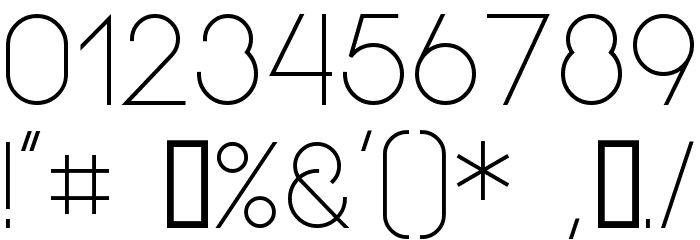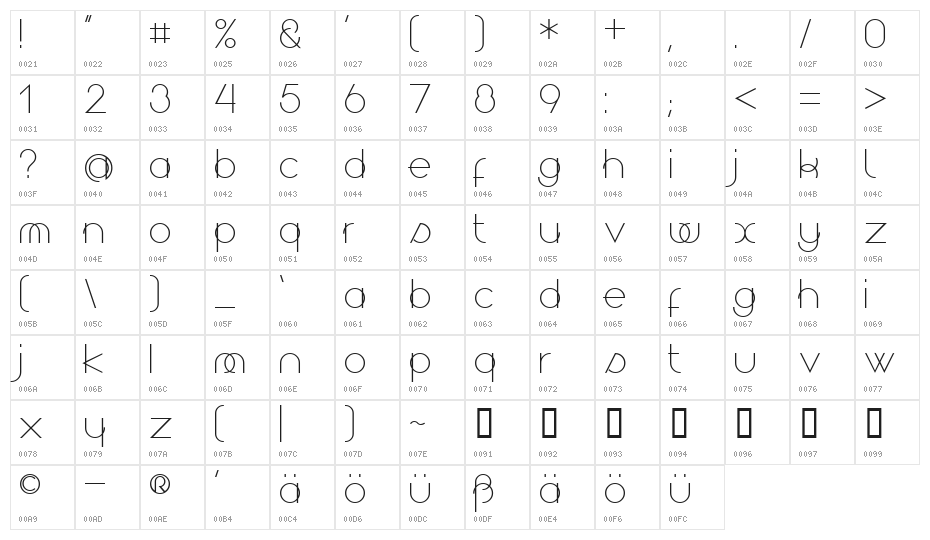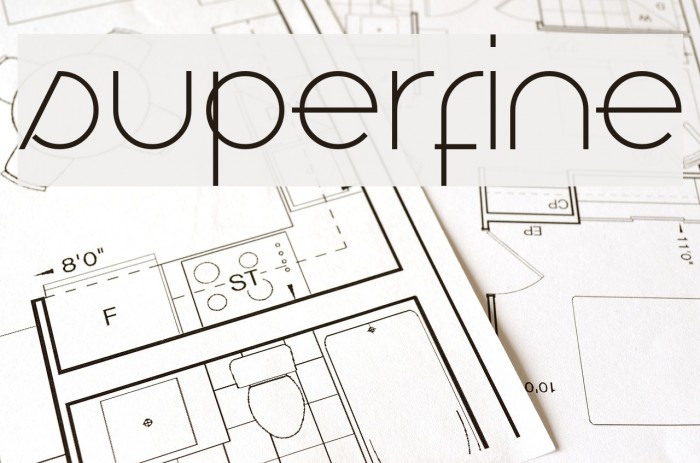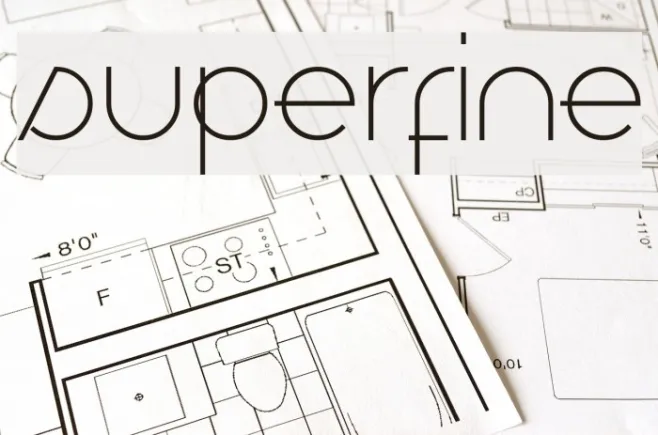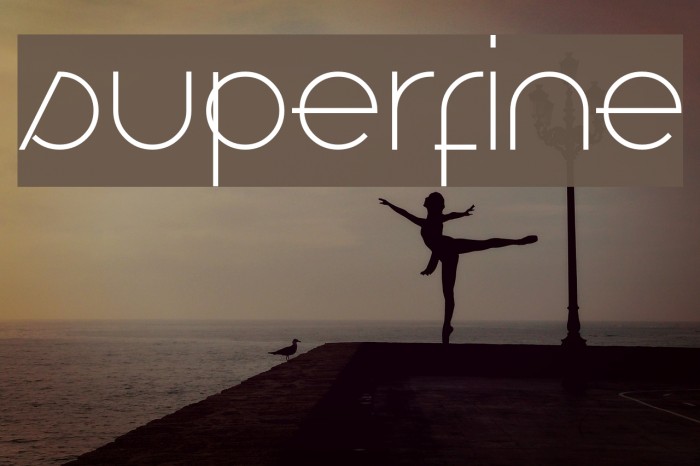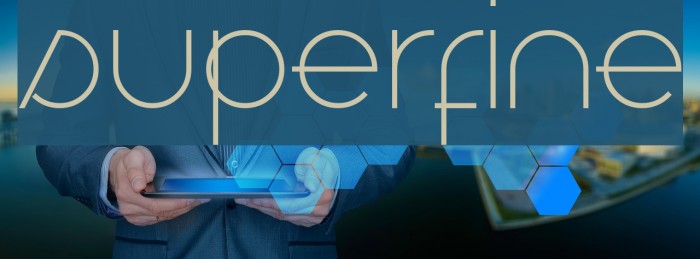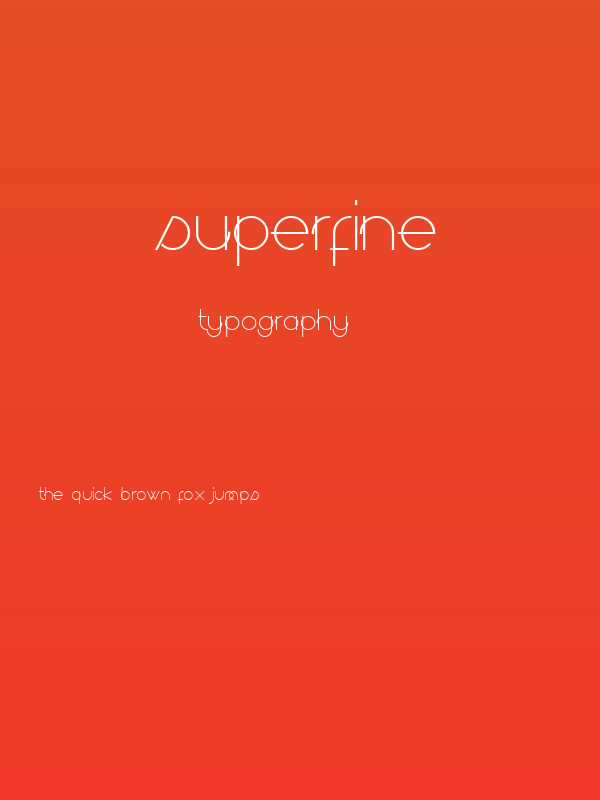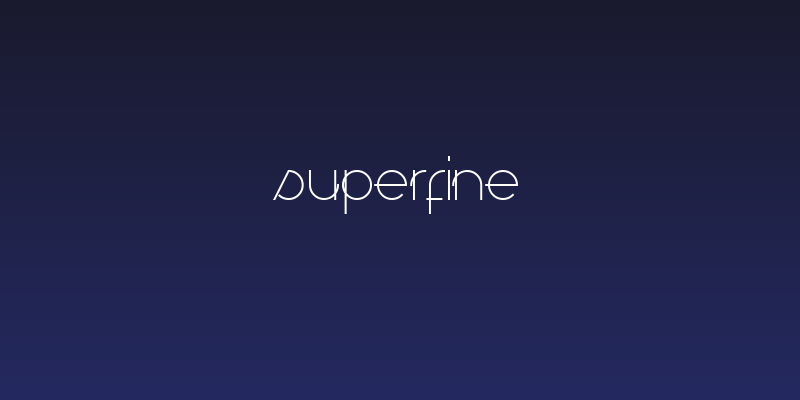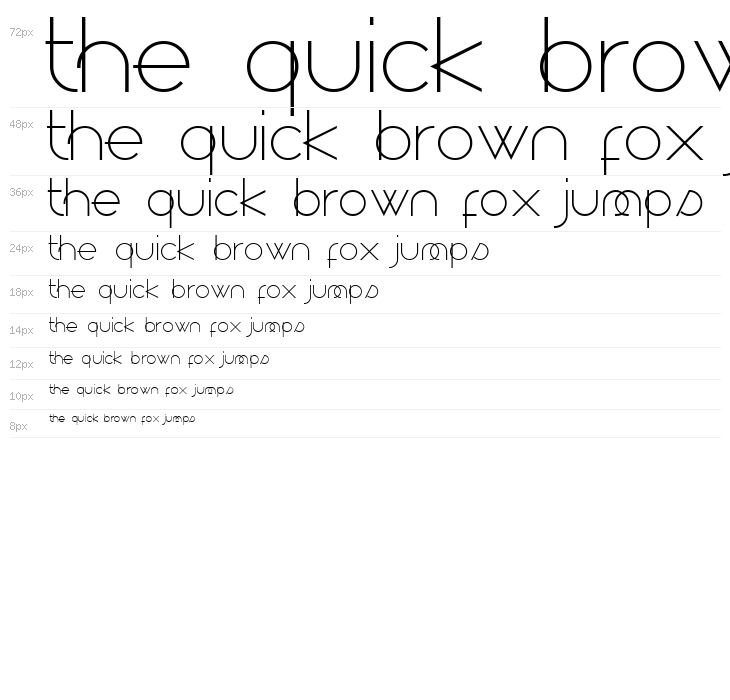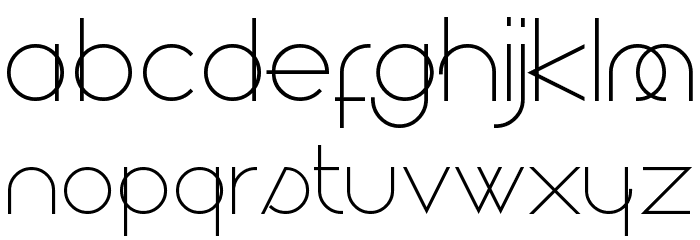
Superfine Font
Superfine Description
This font features a modern, minimalist design with a geometric structure. The characters are composed of thin, consistent strokes that give it a sleek and elegant appearance. The uppercase and lowercase letters maintain a uniform height, contributing to a clean and orderly look. The numerals and special characters are designed with the same geometric precision, ensuring a cohesive style throughout. The font's simplicity and clarity make it highly legible, even at smaller sizes. Its contemporary aesthetic is suitable for a variety of design applications, from digital interfaces to print media.
| Proposed Projects | Ideal for branding, digital interfaces, editorial design, and minimalist posters. |